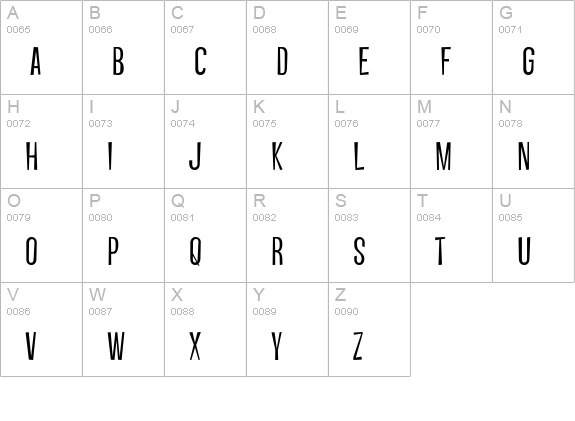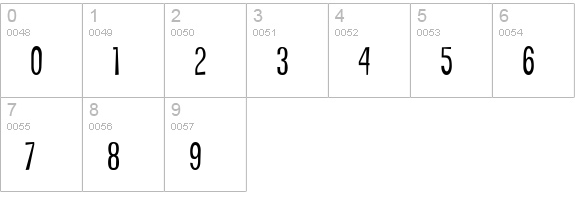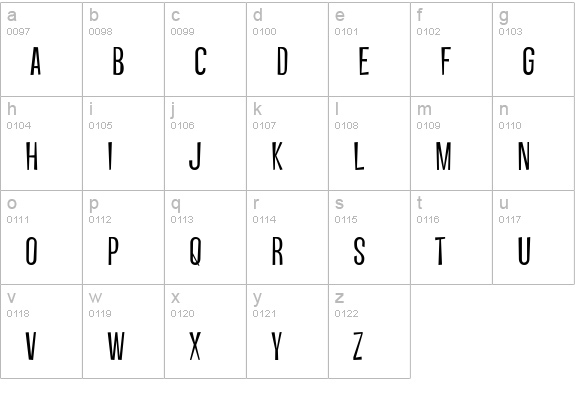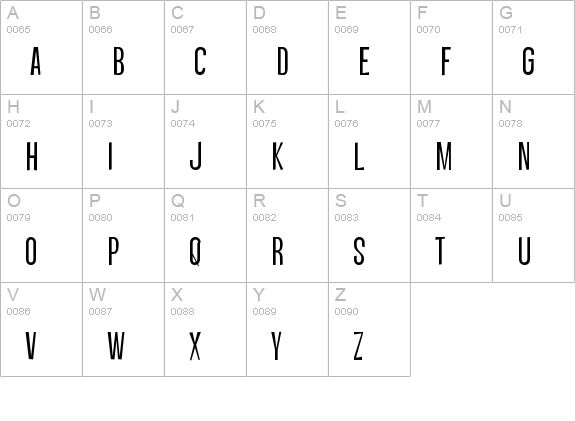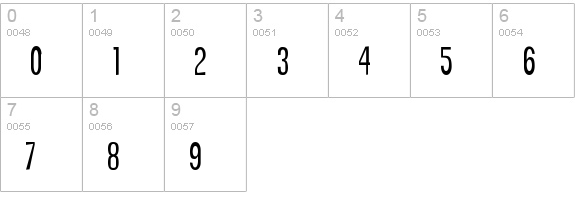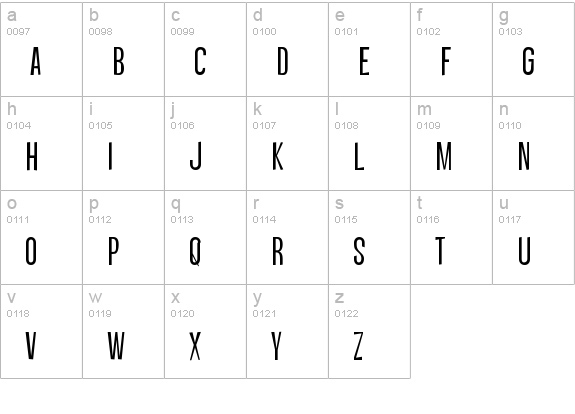
Vanishing Boy BTN Light is a refined, elegant variant in the Vanishing typeface family \xE2\x80\x94 well suited to elegant body text, refined sub-headings, and luxury branding.
The Vanishing Boy BTN Light font is a stunning display typeface that exudes elegance and sophistication. Its delicate lines and graceful curves make it the perfect choice for projects that require a touch of refinement. This font captures attention with its unique blend of contemporary and classic design elements. Vanishing Boy BTN Light is ideal for a wide range of creative endeavors, including branding, advertising, packaging, and more. It instantly adds a sense of sophistication and professionalism to any project it is used in. Whether you're designing a logo, creating a website, or crafting an invitation, this font will make your text stand out and leave a lasting impression. One of the best things about Vanishing Boy BTN Light is that it is available for free. You can easily download this font from FontsMarket.com and use it in both personal and commercial projects without any restrictions. This means that you can enhance your designs without breaking the bank or compromising on quality. With its versatile and stylish design, Vanishing Boy BTN Light is a must-have font for designers, creatives, and anyone looking to add a touch of elegance to their work. Download it now from FontsMarket.com and experience the beauty and versatility of this font for yourself.